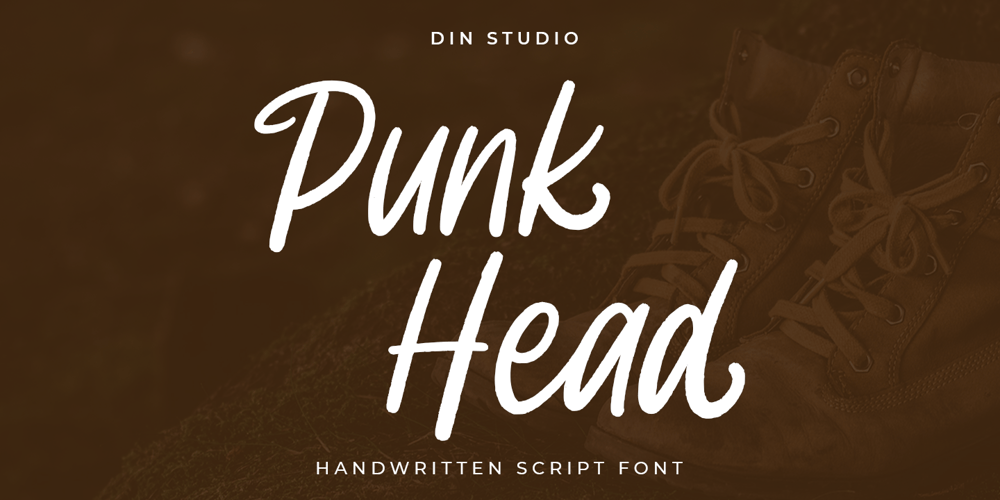
Punk Head Font Family was designed by Donis Miftahudin and published by Ditatype. Punk Head contains 1 styles and family package options. Punk Head is a handwritten font. With a natural and beautiful handwritten style, it brings a classy and chic typeface. Chalk Brush is best used for branding, logotype, and quotes.Includes: – Punk Head (OTF)Features: – Alternates – PUA Encoded – Multilingual Support – Numerals and Punctuation